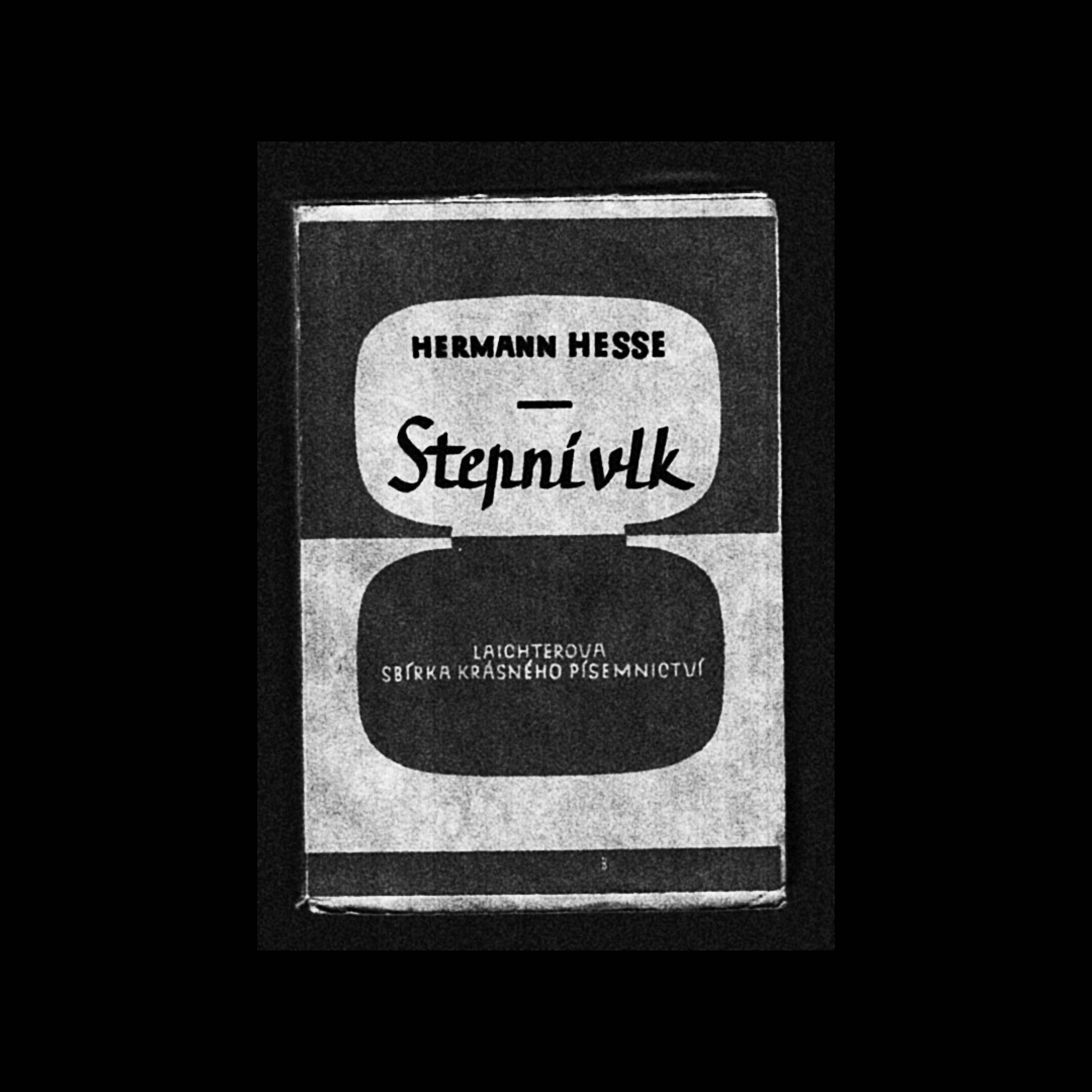
Benda is a modern geometric script font with roots in the calligraphy and lettering of legendary artist Jaroslav Benda.
With bold, predominantly low joins, the robust monolinear character strokes shine in one-word and short inscriptions as well as in longer headlines. The practical letterforms do not clutter the space with loops and curlicues, while the emphasised baseline helps to underline the importance of the message. What’s more – Benda is a smart font, automatically replacing conflicting characters with suitable alternatives as you write so that the final text flows seamlessly.
Because Benda is the sequel to Jaroslav, it derives the slant, colour, and geometric characteristics from the sans typeface, forming the perfect companion to the font. So much so, it can serve as a second italic emphasis in long texts.
- Design: Tomáš Brousil